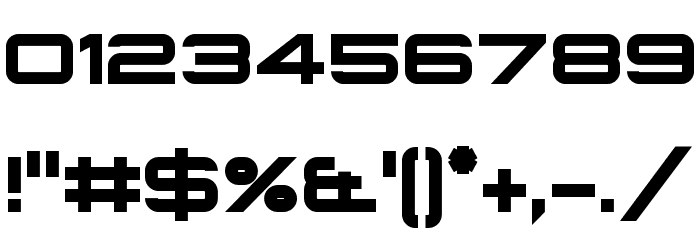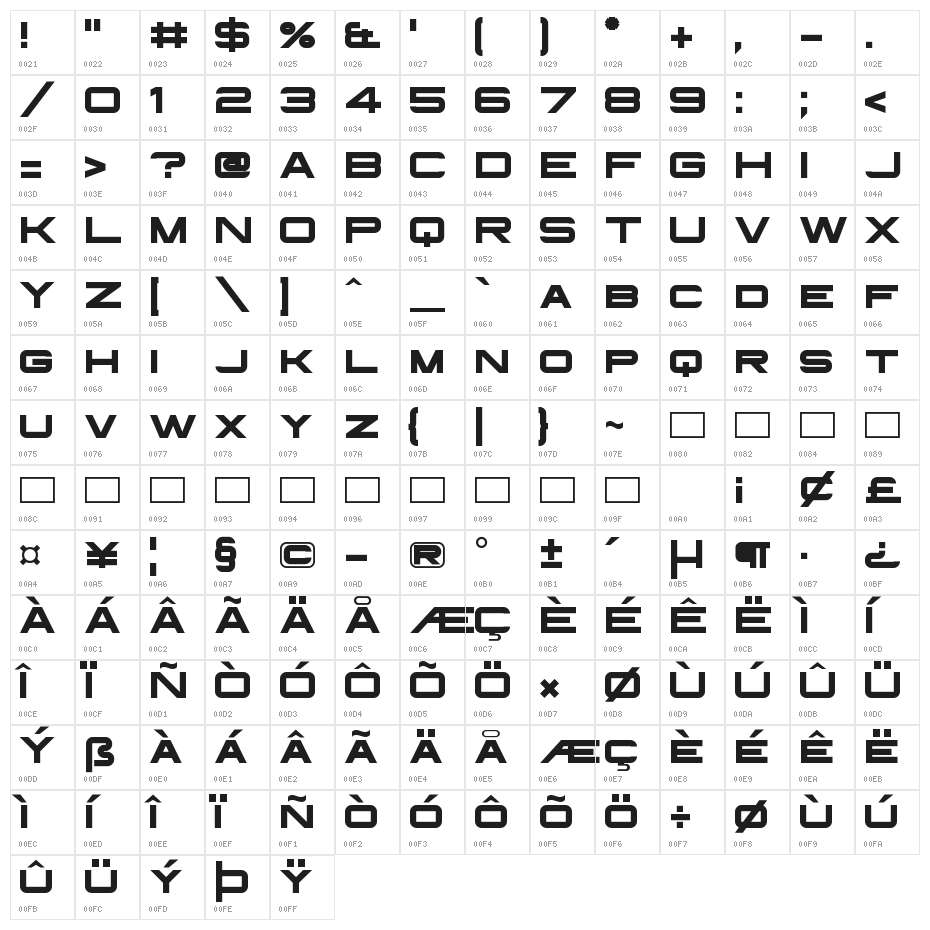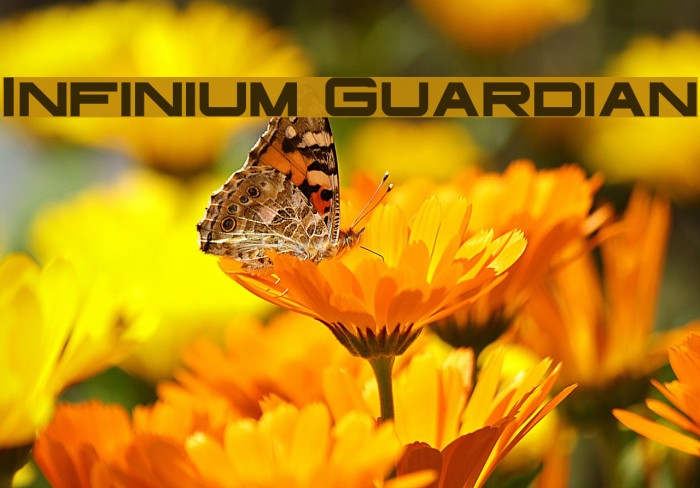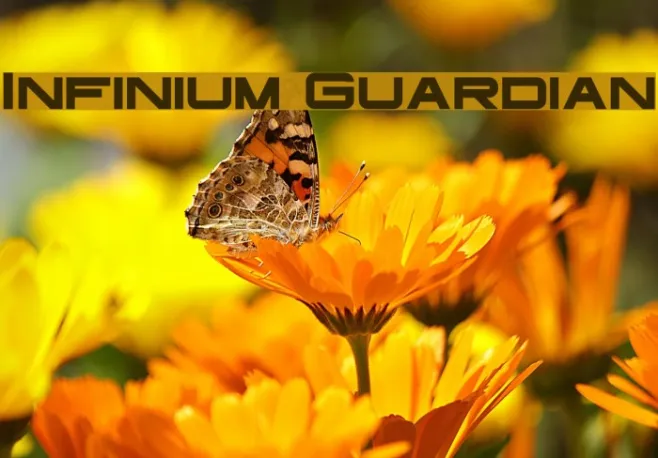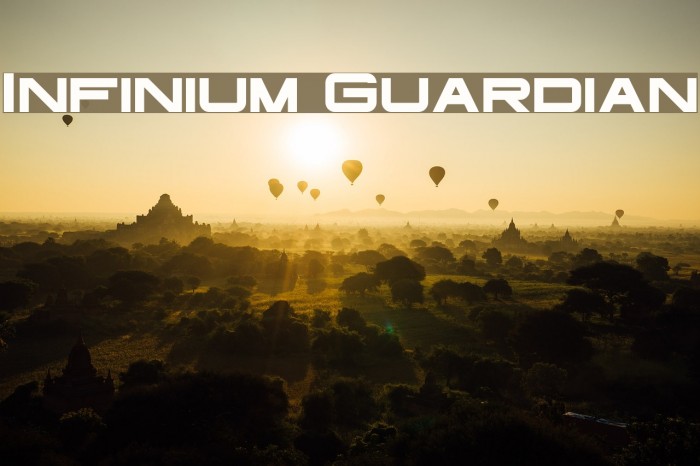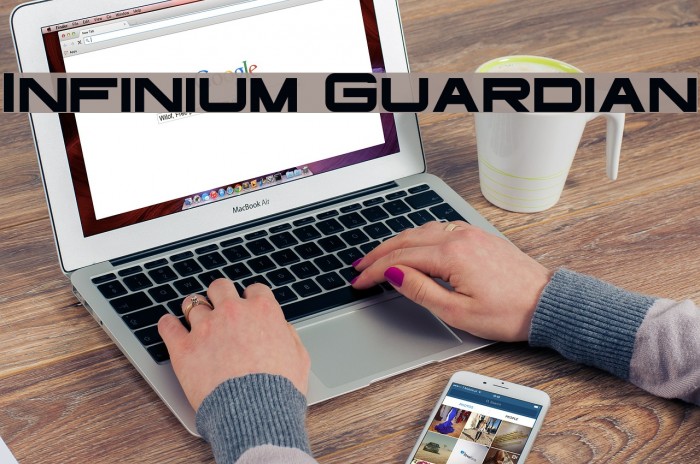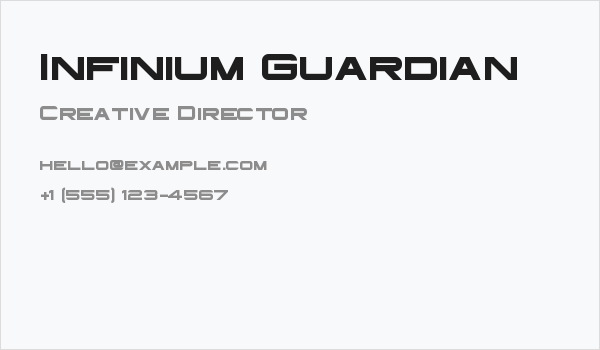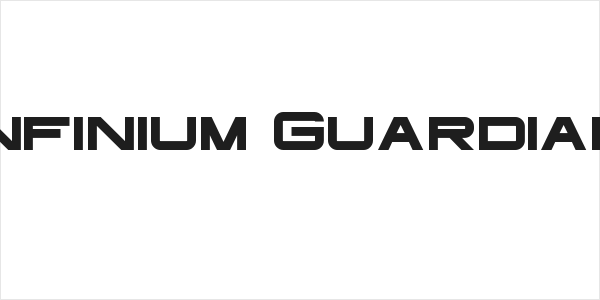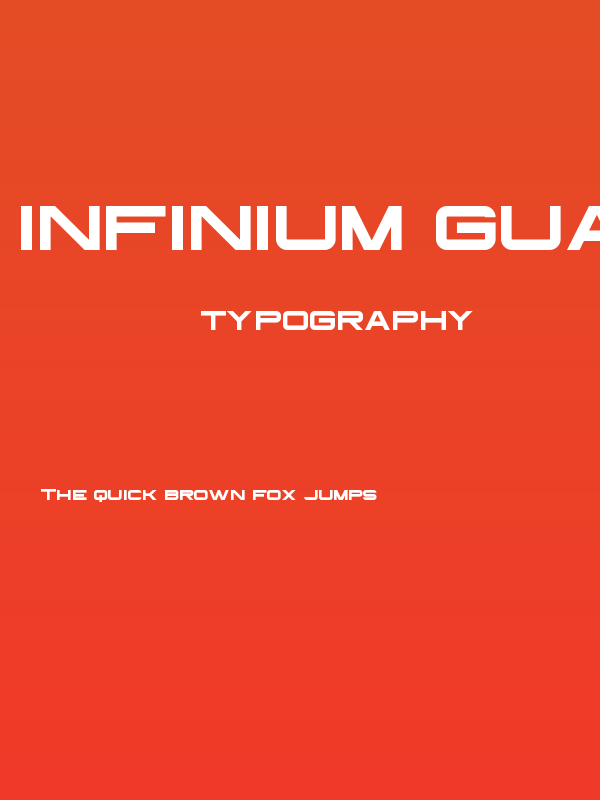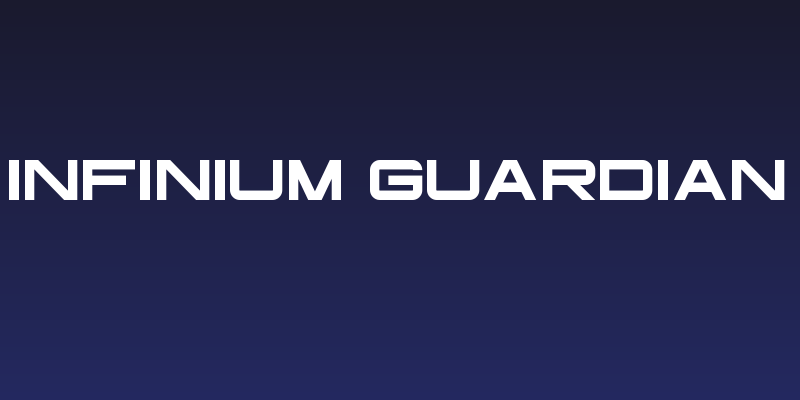
Infinium Guardian Font
Infinium Guardian Description
This font exhibits a bold, futuristic design with a geometric structure. The characters are uniform in height, featuring sharp angles and clean lines that convey a sense of modernity and precision. The uppercase letters are particularly striking, with a consistent width that enhances readability. The numbers and special characters maintain the same aesthetic, ensuring a cohesive look across all text elements. This font's style is ideal for projects that require a strong visual impact, such as technology branding or sci-fi themed designs.
| Proposed Projects | Ideal for technology branding, sci-fi themes, video game interfaces, and modern advertising. |